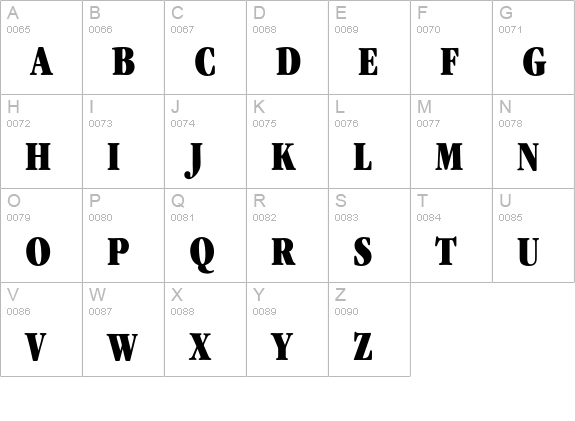
GaramondEF-UltraCondensed Font Details
GaramondEF-UltraCondensed is a stunning font that exudes elegance, sophistication, and a touch of vintage charm. Its slender and elongated letterforms make it perfect for adding a touch of class to any design project. This font is a masterpiece of typography, meticulously crafted to capture the essence of the iconic Garamond typeface. Its ultra-condensed form allows for maximum readability without compromising on style. Each letter is delicately balanced, creating a harmonious flow that is pleasing to the eye. GaramondEF-UltraCondensed is not only visually captivating, but it also offers the utmost versatility. Whether you're creating a logo, designing a magazine layout, or crafting an invitation, this font will effortlessly elevate your work to new heights. What makes GaramondEF-UltraCondensed even more remarkable is that it is available for free. Yes, you heard that right - you can download this exceptional font without spending a dime. Thanks to FontsMarket.com, you can easily access and enjoy the beauty of GaramondEF-UltraCondensed without any cost or restrictions. So, why wait? Embrace the timeless allure of GaramondEF-UltraCondensed and take your designs to the next level. Download this incredible font today at FontsMarket.com and let your creativity soar.